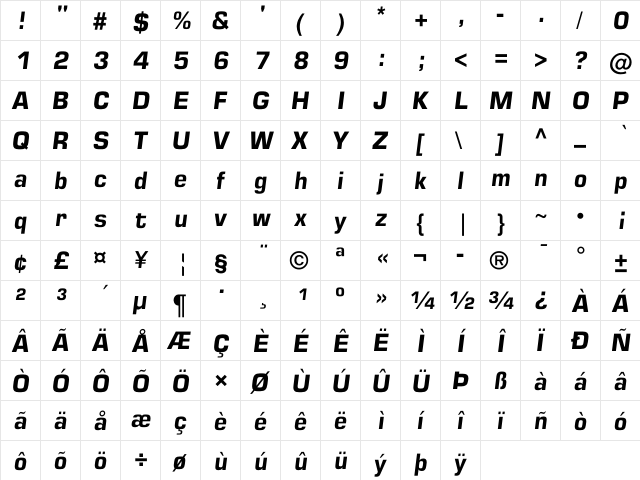
LHF Stevens Percepta Bold Italic Font Preview
| Foundry | Arthur Vanson for Letterhead Fonts |
Design Context for LHF Stevens Percepta Bold Typeface
LHF Stevens Percepta Bold offers clean, dependable letterforms without strong stylistic allegiance, making it a practical choice for designers who need flexibility. The slanted form adds forward momentum and visual energy. Its bold stroke weight gives it real presence on the page.
Pro Tip: Try LHF Stevens Percepta Bold for annotation and caption copy alongside an upright companion — the contrast in angle creates a dynamic but ordered typographic system.